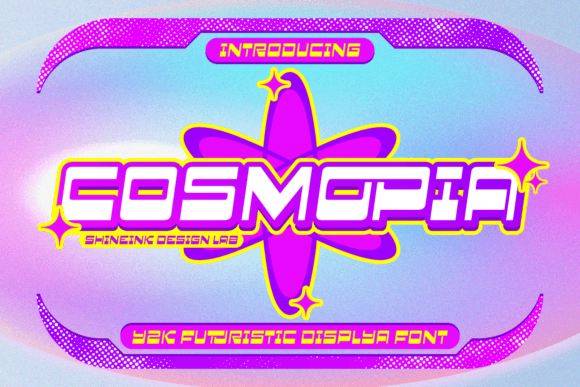
Embark on a typographic adventure with Cosmopia Font, a futuristic and bold creation that demands attention. Its sleek and dynamic design, adorned with sharp edges and glittering details, exudes an aura of energy and innovation. Let its clean lines and futuristic shapes inject a touch of sophistication and style into your creative projects.
Cosmopia Font is not just a font; it's a portal to a world of imagination and possibility. Its unique and striking personality adds a futuristic flair to any project, whether it's a poster, logo, or social media graphic. Unleash your creativity and watch your designs take on a life of their own.
With Cosmopia Font, the possibilities are endless. Its PUA encoding allows for effortless access to all glyphs and swashes, empowering you to add intricate details and flourishes to your designs. Experiment with different combinations and discover a universe of typographic expressions.
This font is a visual symphony, a harmonious blend of aesthetics and functionality. Its futuristic design captivates the eye, while its clean lines and readability ensure that your message is communicated effectively. Whether you're a seasoned designer or just starting out, Cosmopia Font is your perfect companion for creating designs that leave a lasting impression.
So, why settle for ordinary when you can embrace the extraordinary? Embark on a journey of typographic exploration with Cosmopia Font and let your creativity soar to new heights.